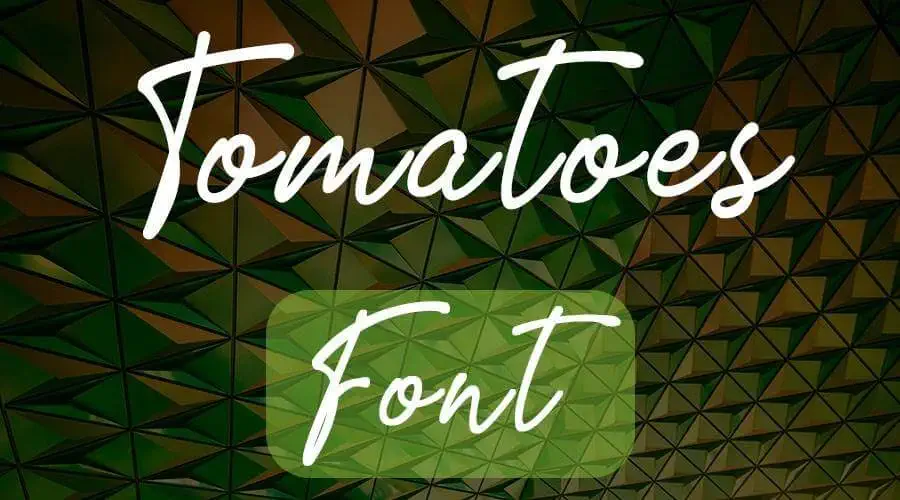
Tomatoes is a handwritten script font. It is another wonderful creation of Billy Argel. With 294 characters and 290 glyph, Tomatoes font has a wonderful typeface. Usually, cursive or handwritten fonts are bold in looks but Tomatoes font is totally different not only for thickness but also for its appearance. Billy Argel creates this on April 22, 2018.
Handwritten fonts are always being user friendly. Tomatoes is such a font that has no usage limitation. Design platforms are most suitable to use this font. When you decide to make a light design and want to add text, Tomatoes font is the perfect choice on that works. The font is light so it is best for light design and text-decoration. You can use this font on the platforms below:
| Name | Tomatoes |
| Style | Handwritten Script |
| Author | Billy Argel |
Ans: Tomatoes is a handwriting script font with the regular bold font style.